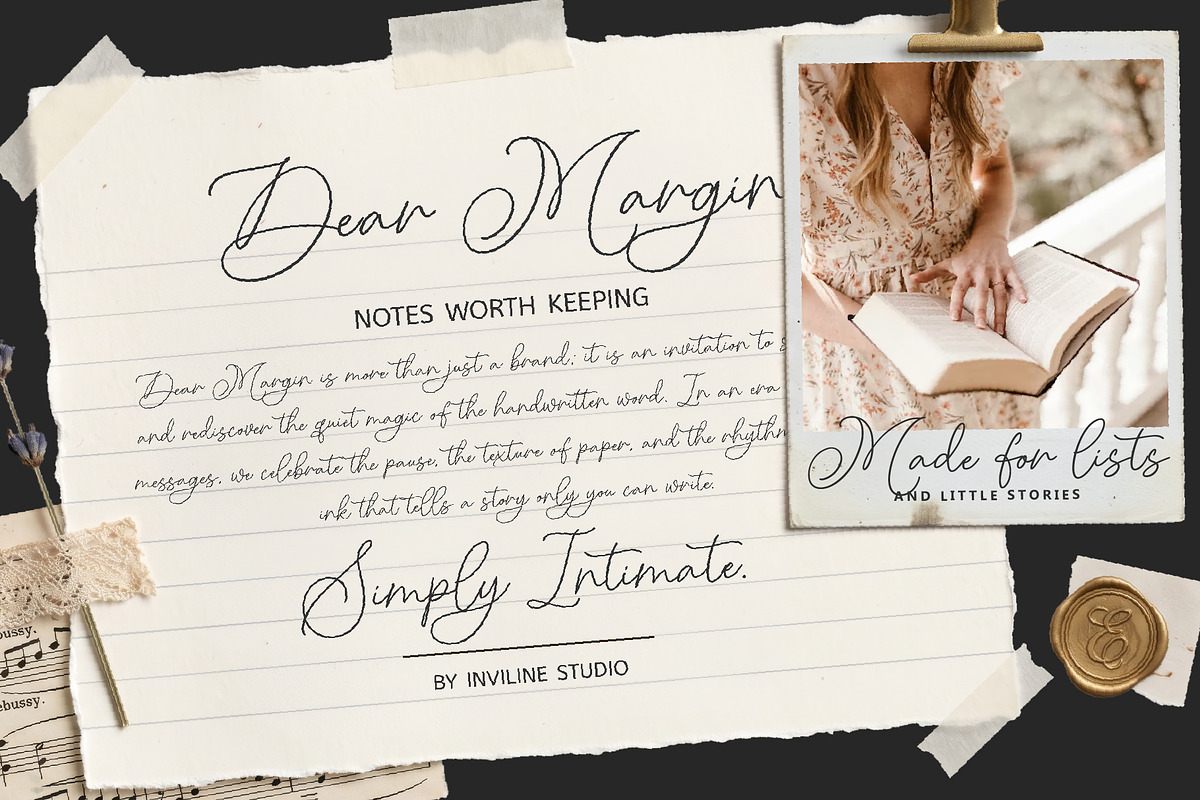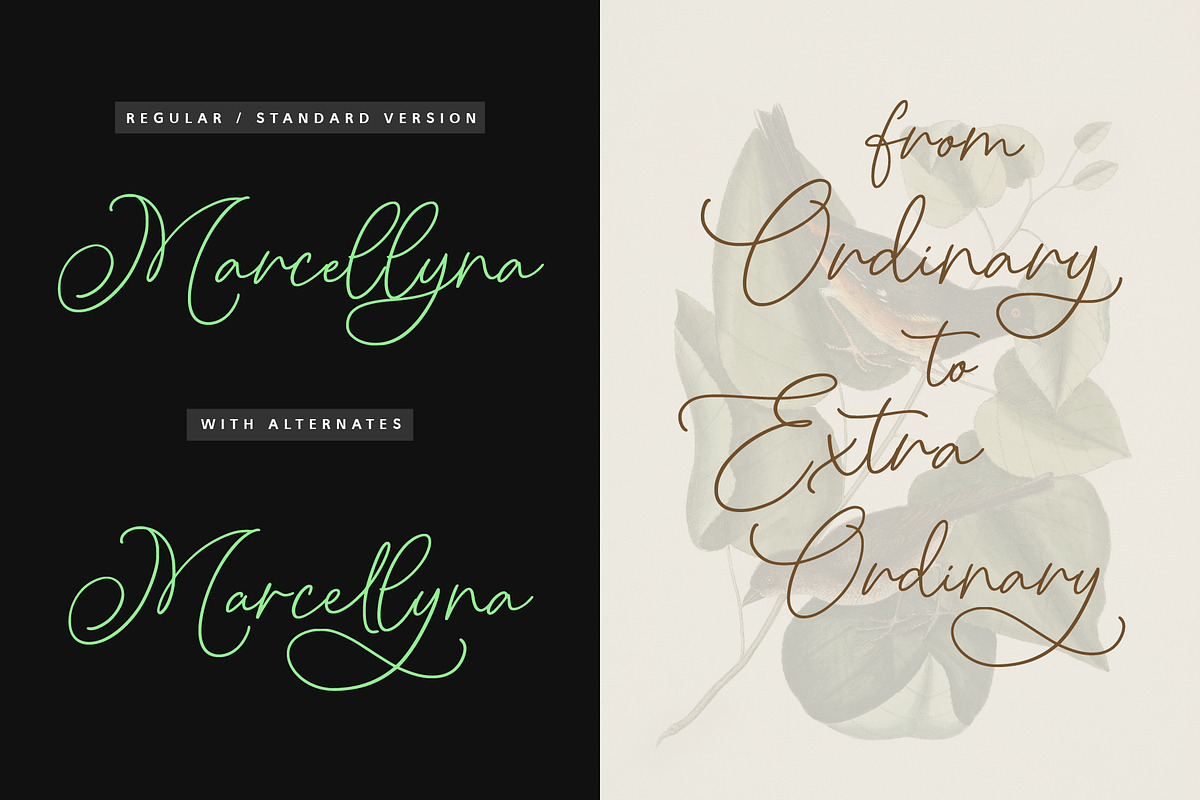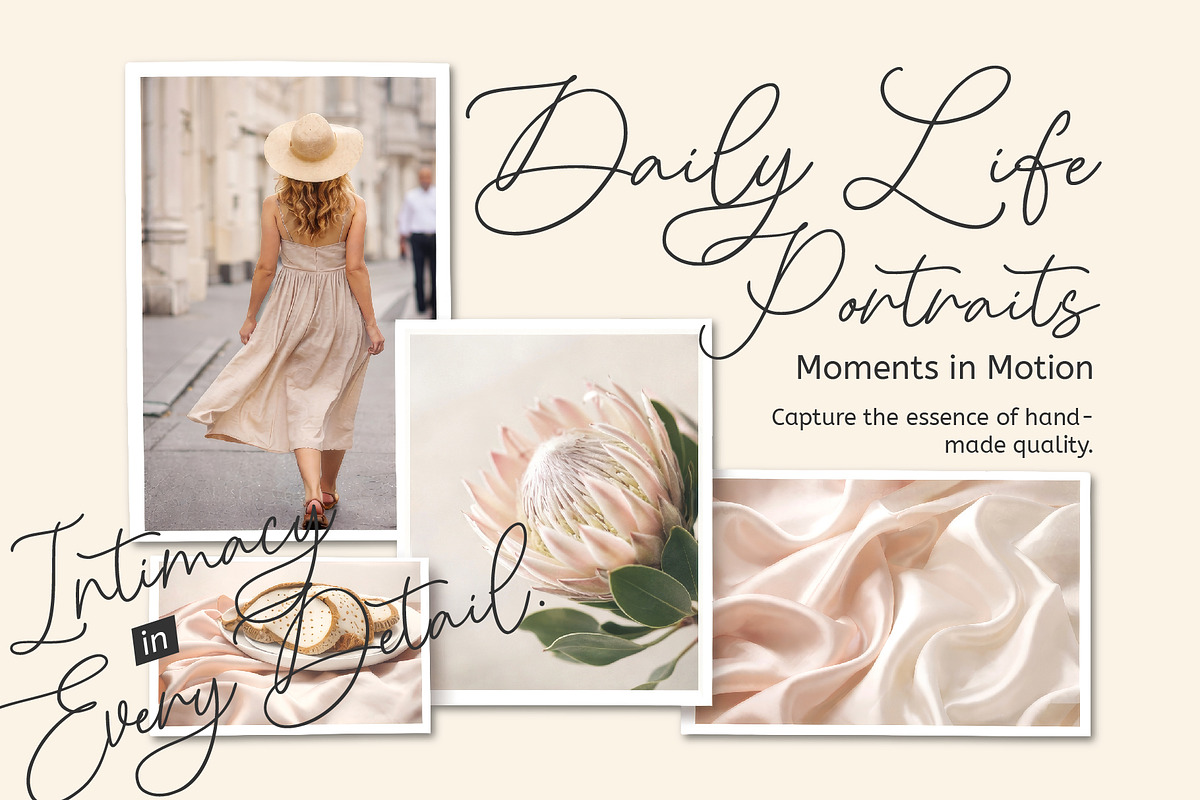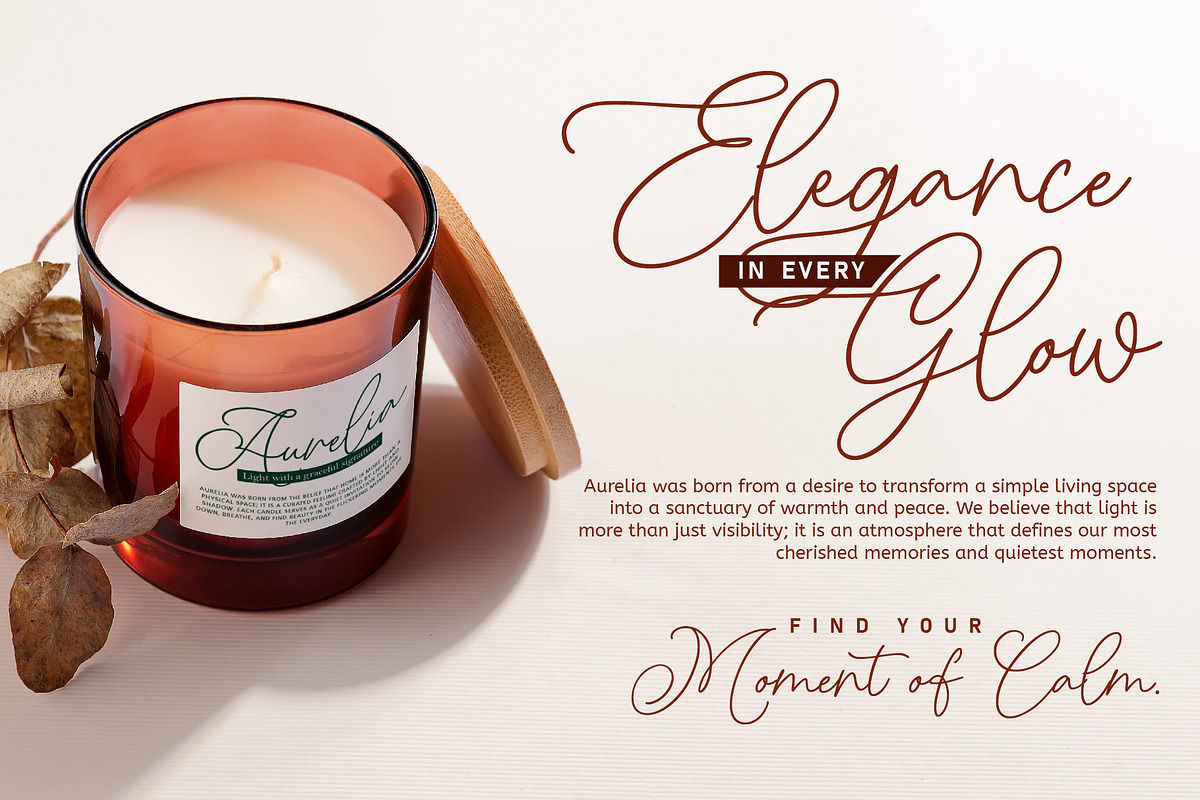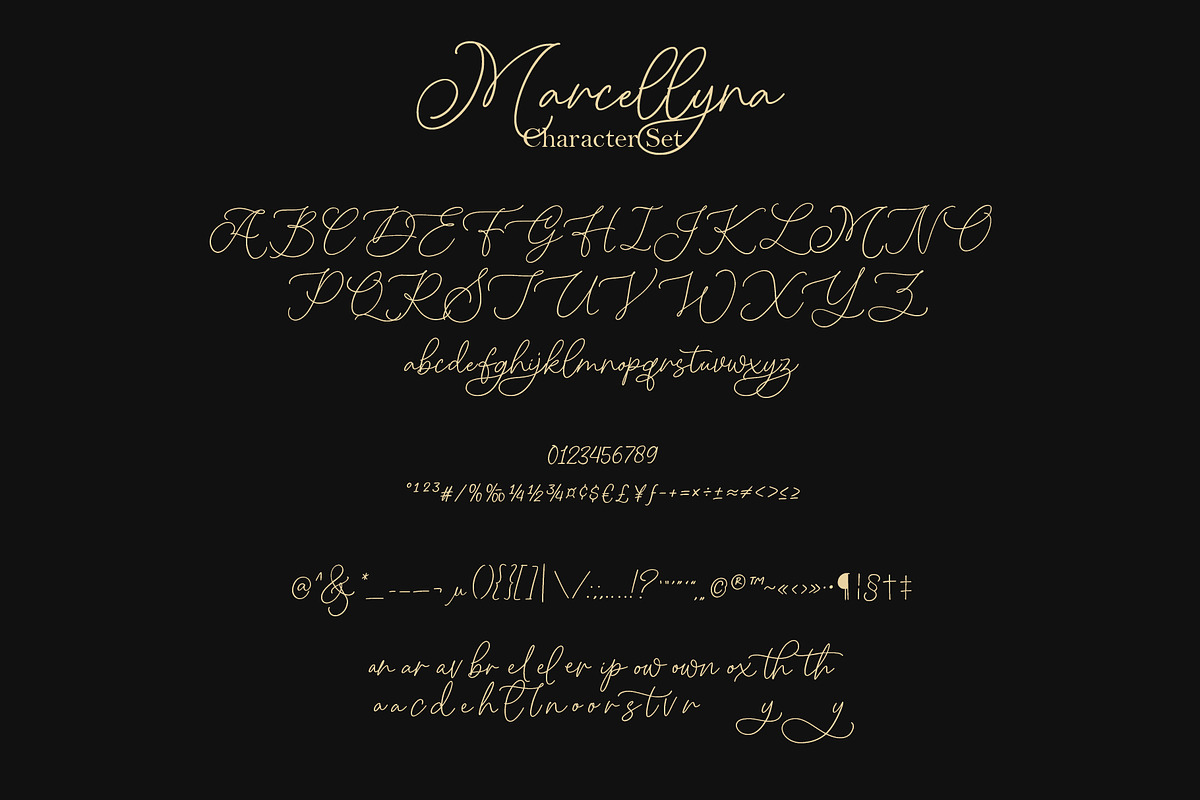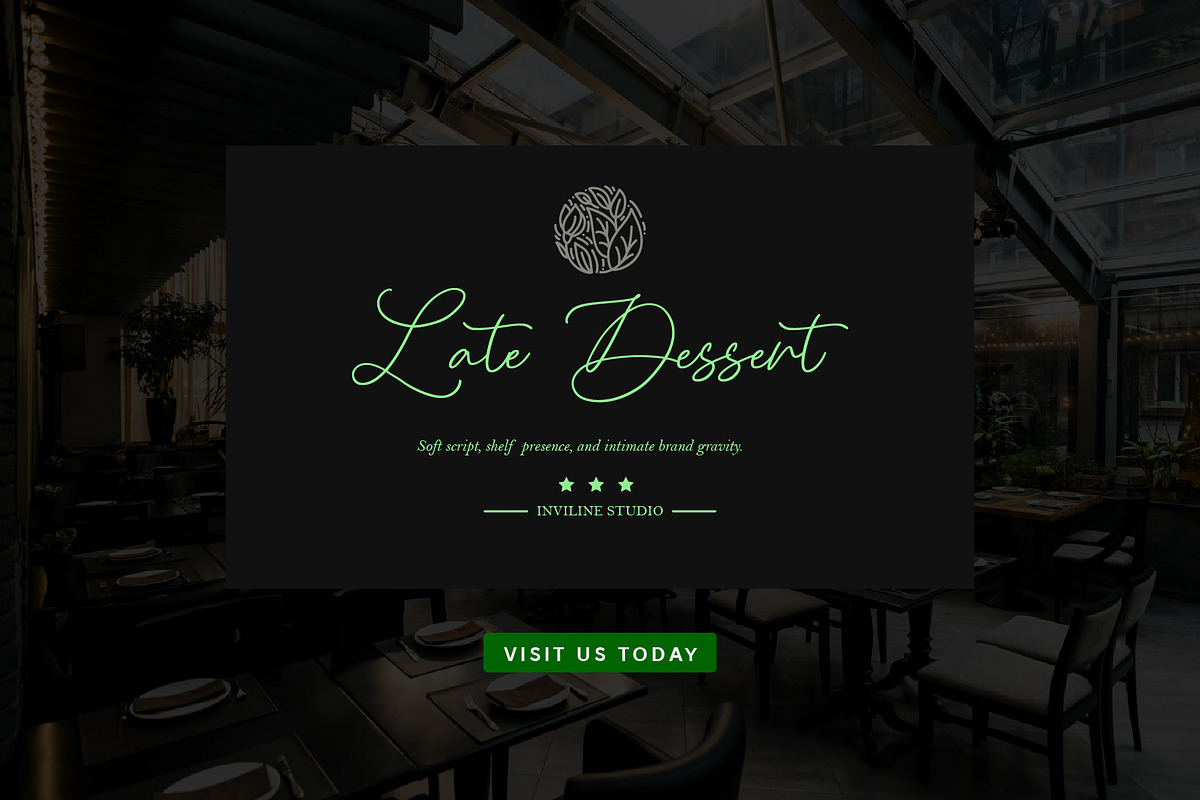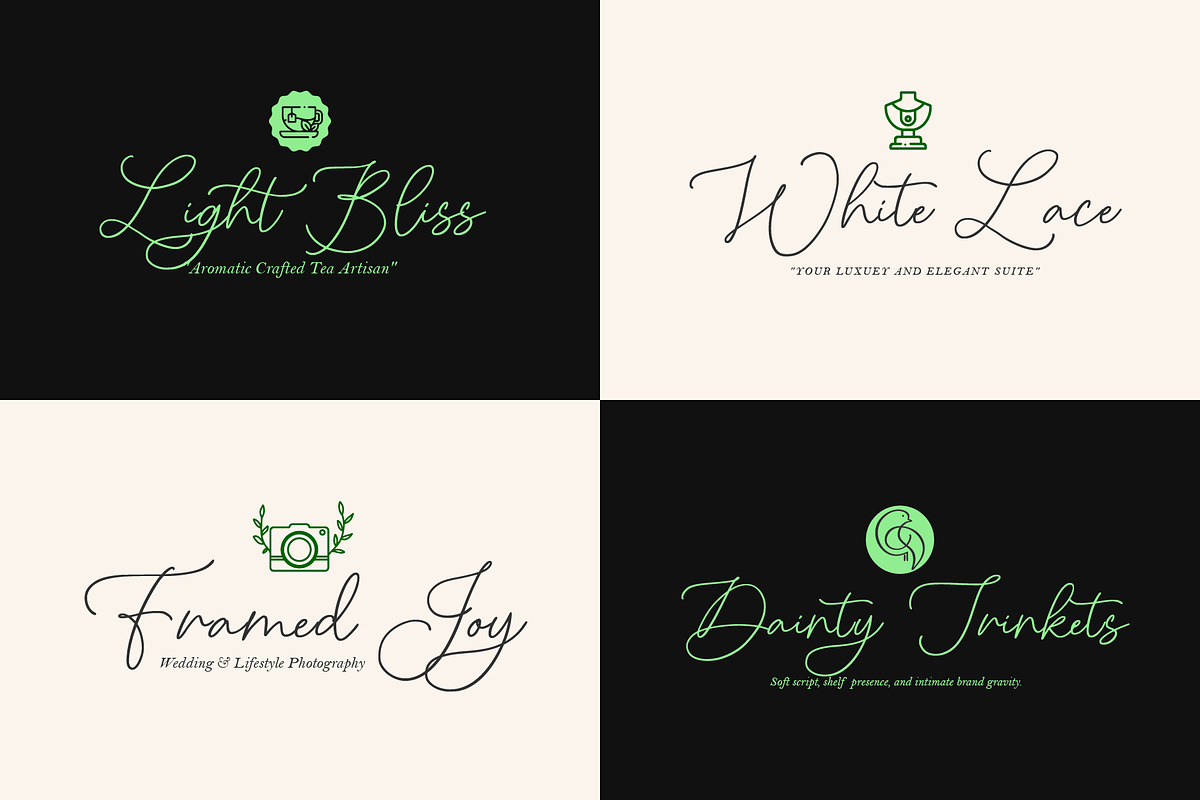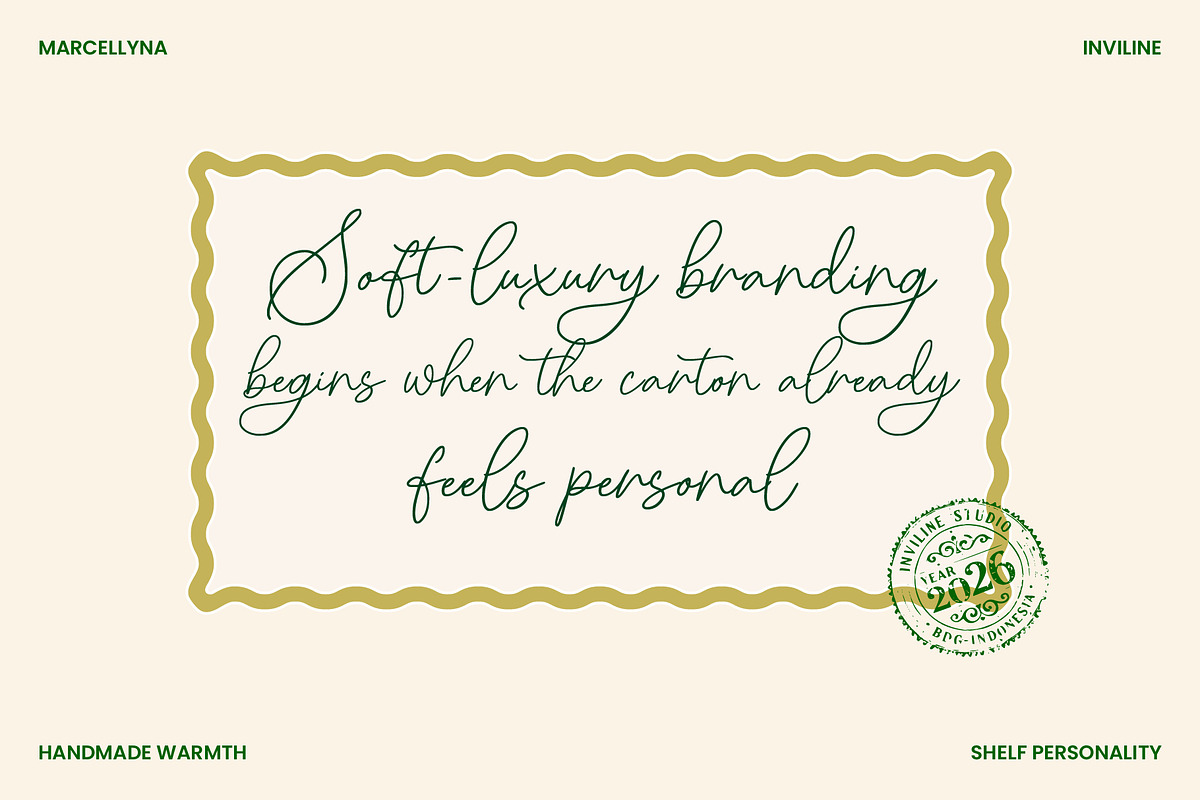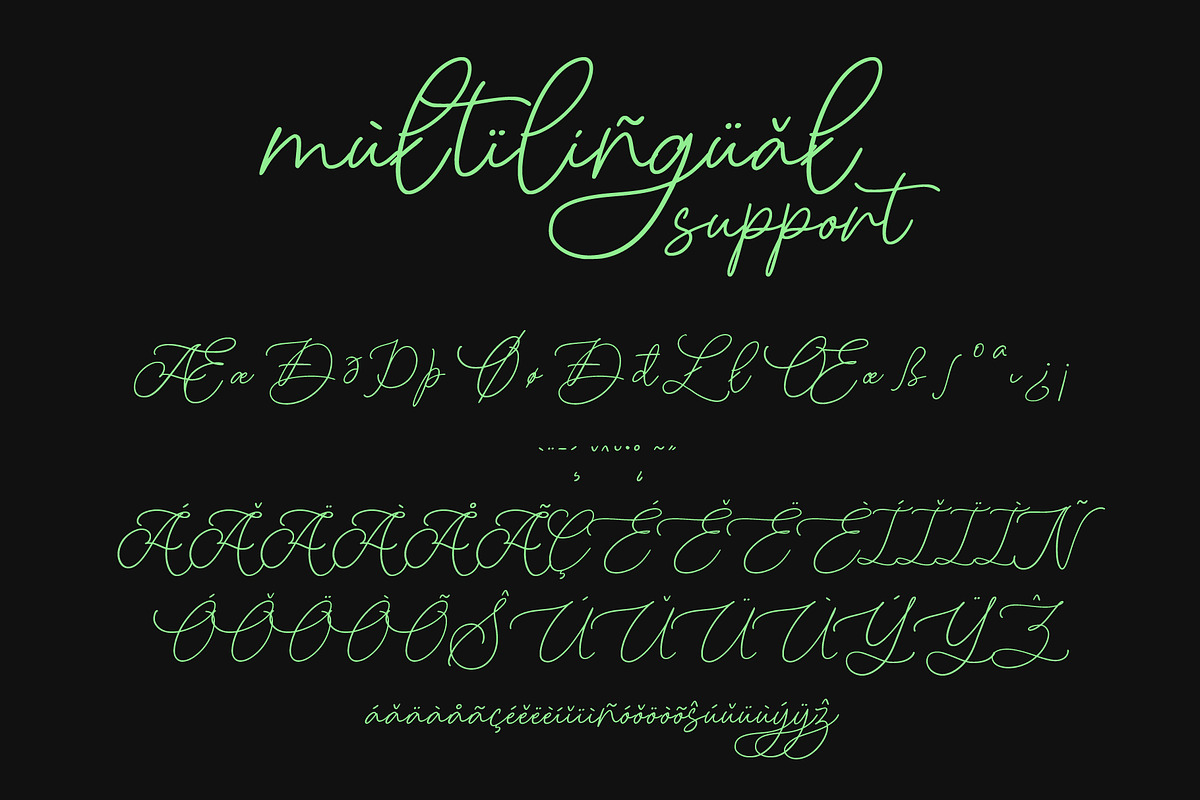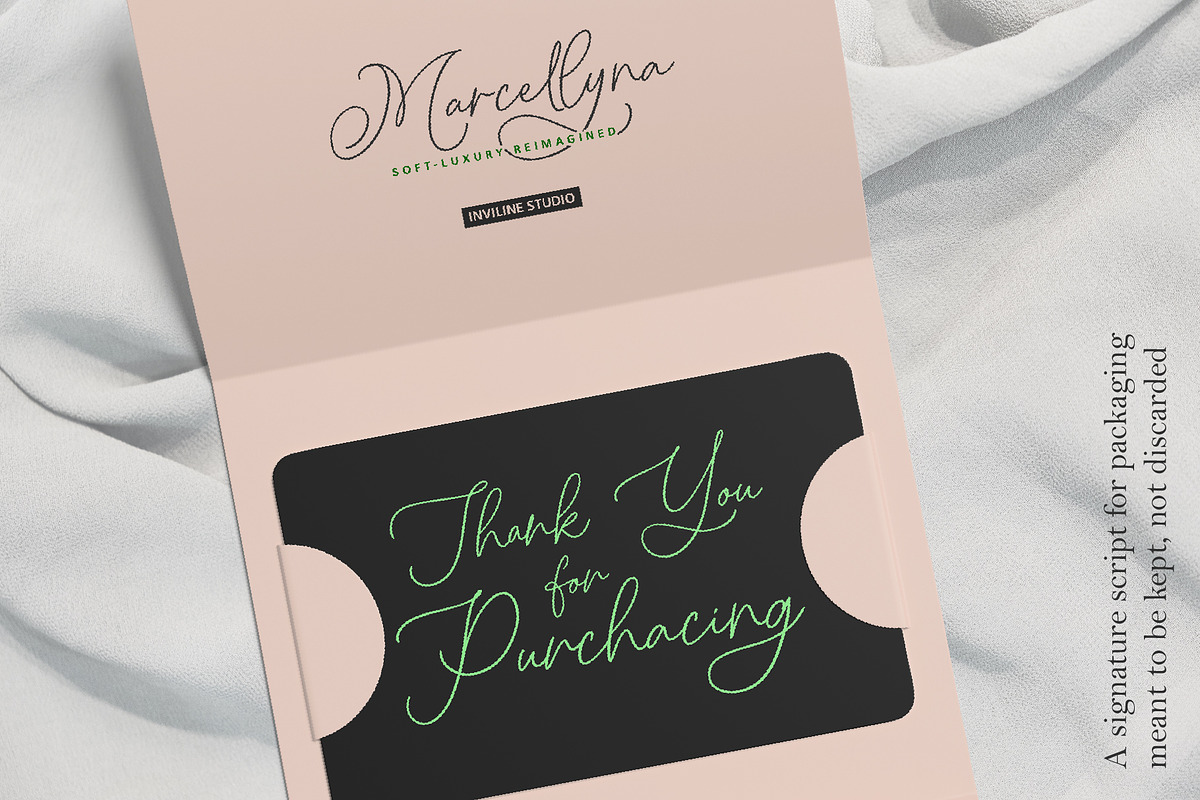
Marcellyna - Soft Luxury Script
An intimate monoline signature script designed for soft-luxury branding, elegant packaging, and graceful visual identities.
Marcellyna is a monoline signature-display script crafted by Inviline Studio (Bandung, Indonesia) for brands that want to feel handwritten, warm, and quietly luxurious.
Designed with a natural pen rhythm, Marcellyna carries the intimacy of a real signature, fluid strokes, elegant loops, and a personality that elevates packaging, logos, invitations, and product labels the moment it's applied.
Full uppercase & lowercase alphabet (A–Z, a–z)
Numerals (0–9) & extended punctuation
Currency symbols, math operators, and special characters
Multilingual / diacritic support (Á Ä Â Ã Å Æ Ç É È Ê Ë Ì Í Ñ Ó Ô Õ Ö Ø Ú Û Ü Ý Ÿ Ž and more)
Stylistic alternates for capital letters
Ligatures (an, ar, av, br, el, ef, er, ip, ow, own, ox, th and more)
OpenType features: Stylistic Alternates (ss01), Standard Ligatures (liga)